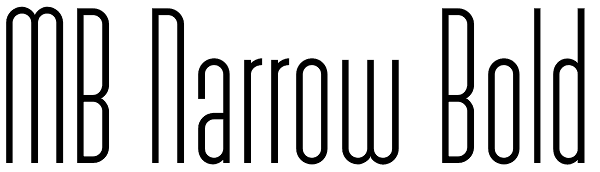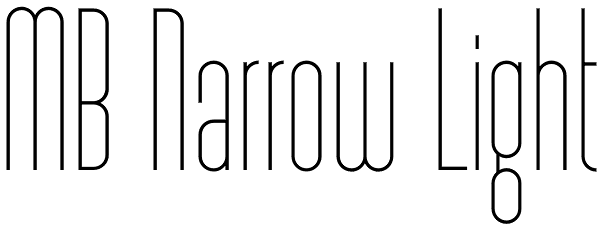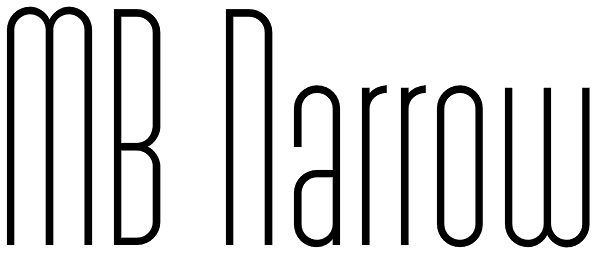
MB Narrow
MB Narrow is a very compressed display font that comes in three weights. with is full use of the 20 stylistic sets it gives the user a lot of scope to how it look. without using them it has a very rounded and geometric look but with alternates for...